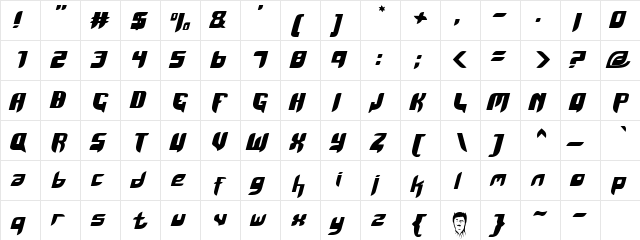
kaum keras kepala Regular
Design Context for kaum keras kepala Typeface
kaum keras kepala is a composed and adaptable typeface that performs quietly and consistently across a wide range of design contexts.